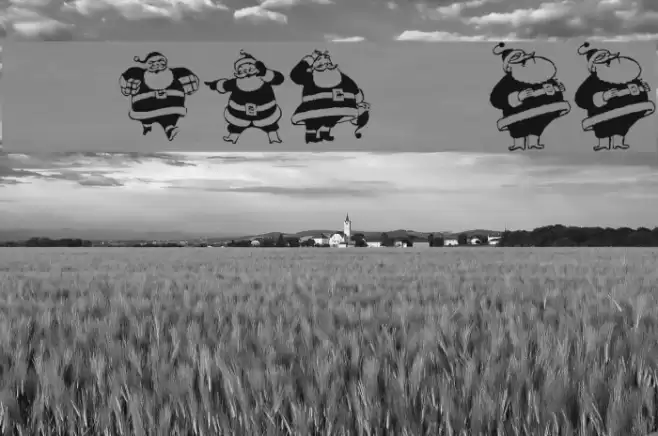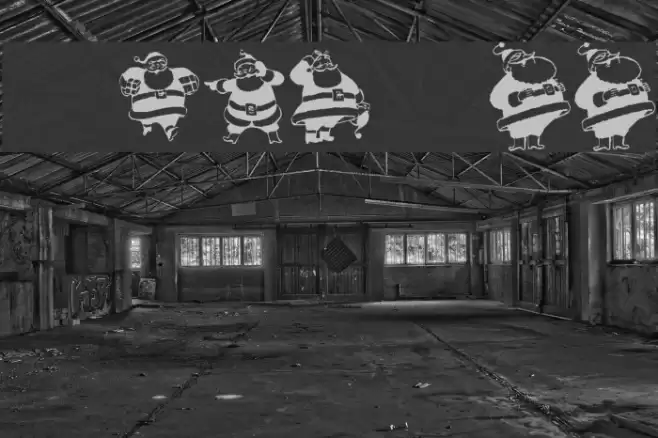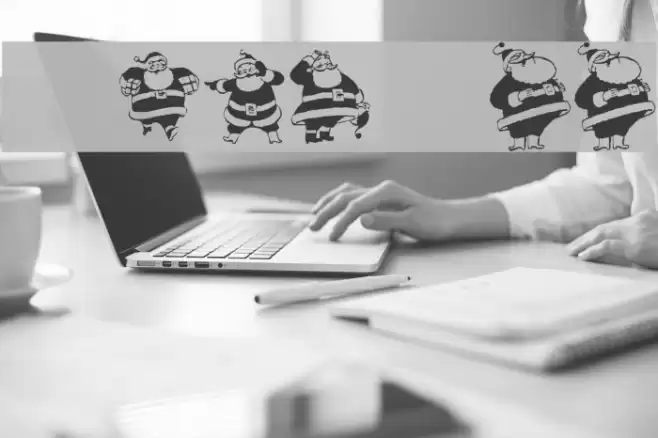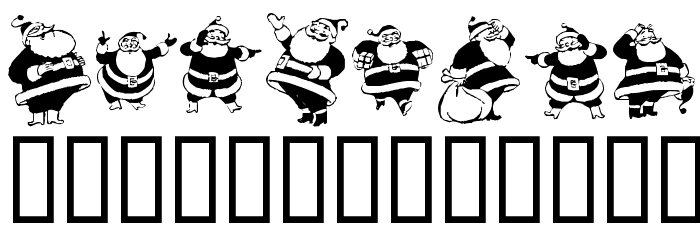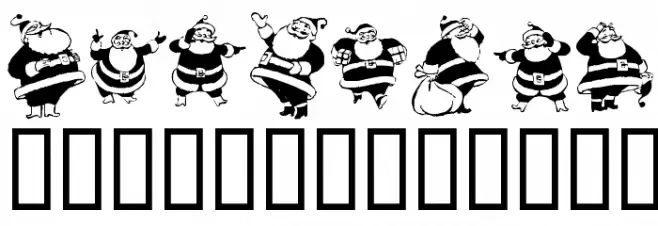
KR Eight Santas Font
KR Eight Santas Description
This is a decorative font featuring playful and whimsical depictions of Santa Claus in various poses. Each character is represented by a different Santa illustration, making it highly thematic and festive. The font captures the joyful and jolly spirit of the holiday season, with each Santa character exuding charm and personality. The design is bold and eye-catching, perfect for adding a touch of holiday cheer to any project. The characters are well-defined, with clear outlines and expressive details that bring each Santa to life.
A festive decorative font featuring whimsical Santa Claus illustrations from Decorative fonts.
- Proposed Projects: Ideal for holiday greeting cards, festive banners, Christmas-themed posters, and playful holiday invitations.
- Overall Style: Festive, Playful, Whimsical
- Use Case: Decorative headings, Holiday-themed designs